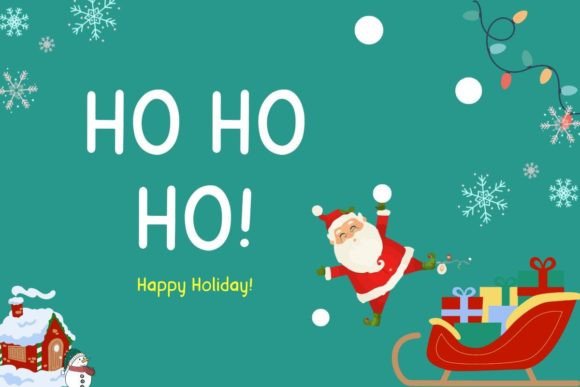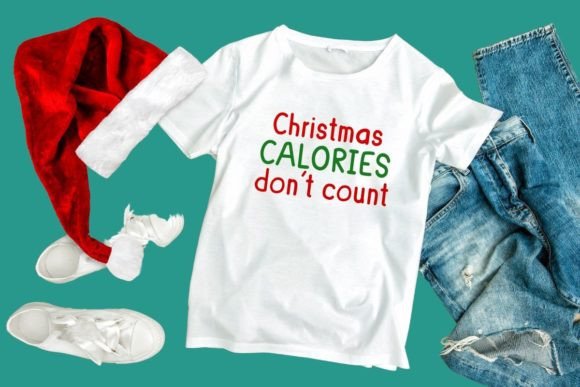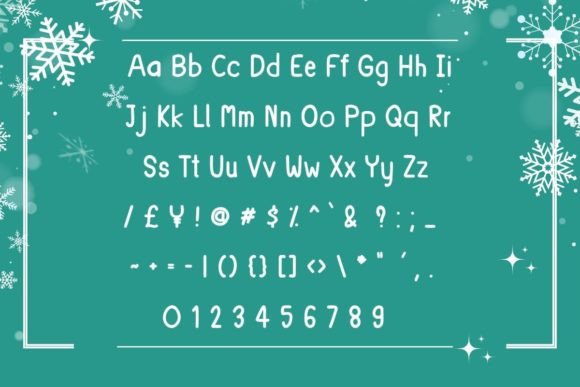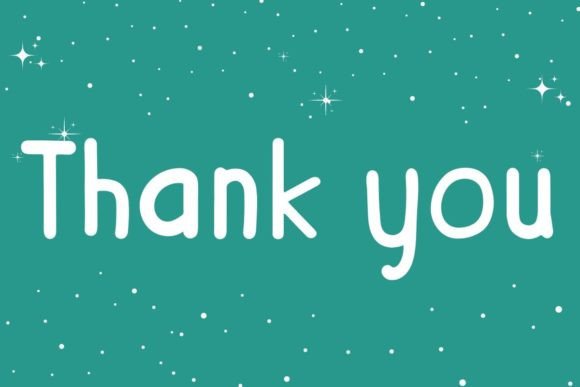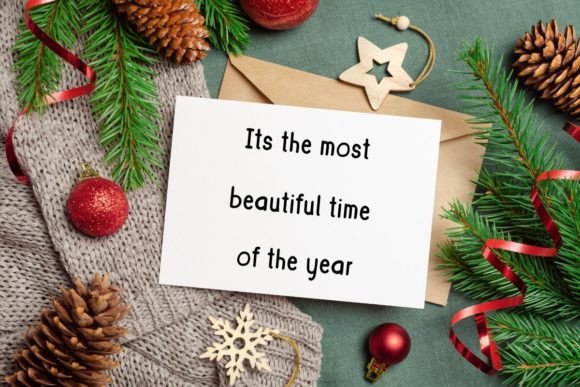
Snowball Font
The Snowball Font Download is a classic handwritten script with a versatile style that adds sweetness to any project. With its timeless strokes and smooth handwritten flow, it is perfect for greeting cards, children’s crafts, branding, and creative digital content. Whether you design posters, invitations, or packaging, Snowball brings charm and warmth.
A Classic Script with Timeless Appeal
The Snowball script font combines handwritten elegance with playful character. As a result, it feels friendly and polished. Furthermore, it adapts easily to both personal and professional designs, making it a go-to option for many creative needs.
Handwritten fonts add warmth to personal stationery. The Snowball Font is excellent for wedding invitations, thank you notes, birthday cards, and seasonal greetings. Because of its sweet handwritten strokes, each card looks polished and heartfelt. In addition, it helps messages feel more personal and memorable.
Branding and Logo Design with Snowball Font
Typography defines the visual tone of a brand. The Snowball handwritten font is ideal for boutique logos, product packaging, and promotional campaigns. Its classic handwritten rhythm allows businesses to appear professional yet approachable. Therefore, it is especially useful for lifestyle, fashion, and craft brands.
Posters, Titles, and Creative Displays
The Snowball Font Download is also great for posters, banners, magazines, and book covers. It stays clear at every size while adding handwritten charm. Consequently, it is a dependable font for designers who want elegance and readability together.
In digital spaces, fonts need to be engaging and flexible. The Snowball typeface integrates smoothly into Instagram posts, YouTube thumbnails, Pinterest graphics, and blogs. Because of its playful handwritten personality, it ensures digital projects look modern and friendly.
Why Designers Choose Snowball Typeface
Designers often choose fonts that balance charm with usability. The Snowball handwritten script keeps its sweet, classic style while staying legible. This makes it suitable for hobbyists and professionals alike. Moreover, its timeless appeal ensures it will not go out of style.